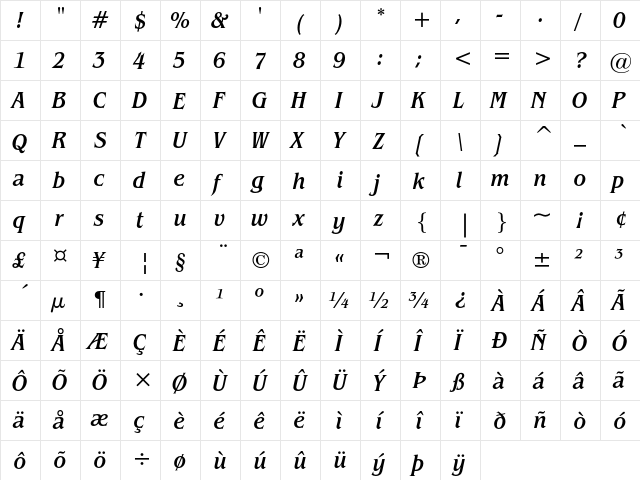
ITC Benguiat Medium Condensed Italic Font Preview
Design Context for ITC Benguiat Typeface
ITC Benguiat takes a measured approach to typography — its balanced proportions and neutral character make it a reliable workhorse for both digital and print work. The dynamic lean of this cut emphasises speed and emphasis in any layout. The condensed width makes it efficient for tight spaces without sacrificing legibility.
Pro Tip: Try ITC Benguiat for annotation and caption copy alongside an upright companion — the contrast in angle creates a dynamic but ordered typographic system.